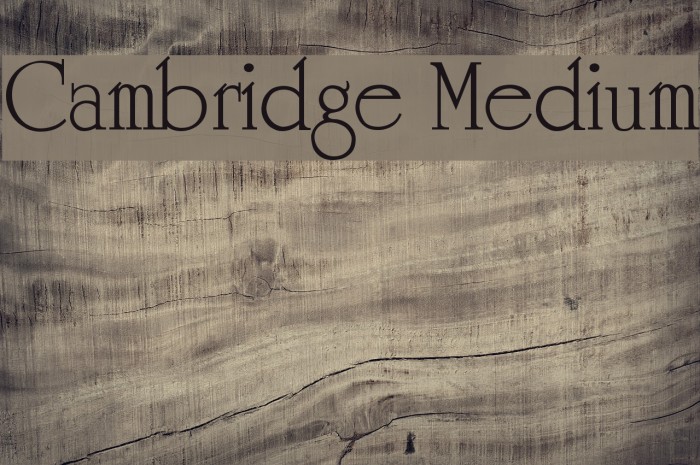
Cambridge Medium Font
This font exhibits a classic serif style with elegant and refined strokes. The uppercase letters are characterized by their tall, narrow forms and pronounced serifs, giving them a sophisticated appearance. The lowercase letters maintain a consistent style, with smooth curves and a balanced weight distribution. The numerals are clear and legible, featuring the same serif details as the alphabetic characters. Special characters are designed to complement the overall aesthetic, with a touch of flair in their execution. The font's design is suitable for projects that require a touch of elegance and tradition.
A classic serif font with elegant strokes and refined serifs.
- Proposed Projects: Ideal for book covers, formal invitations, branding for luxury products, and editorial design.
- Category: Serif
- Overall Style: Classic
- Use Case: Headlines, Body text, Logos